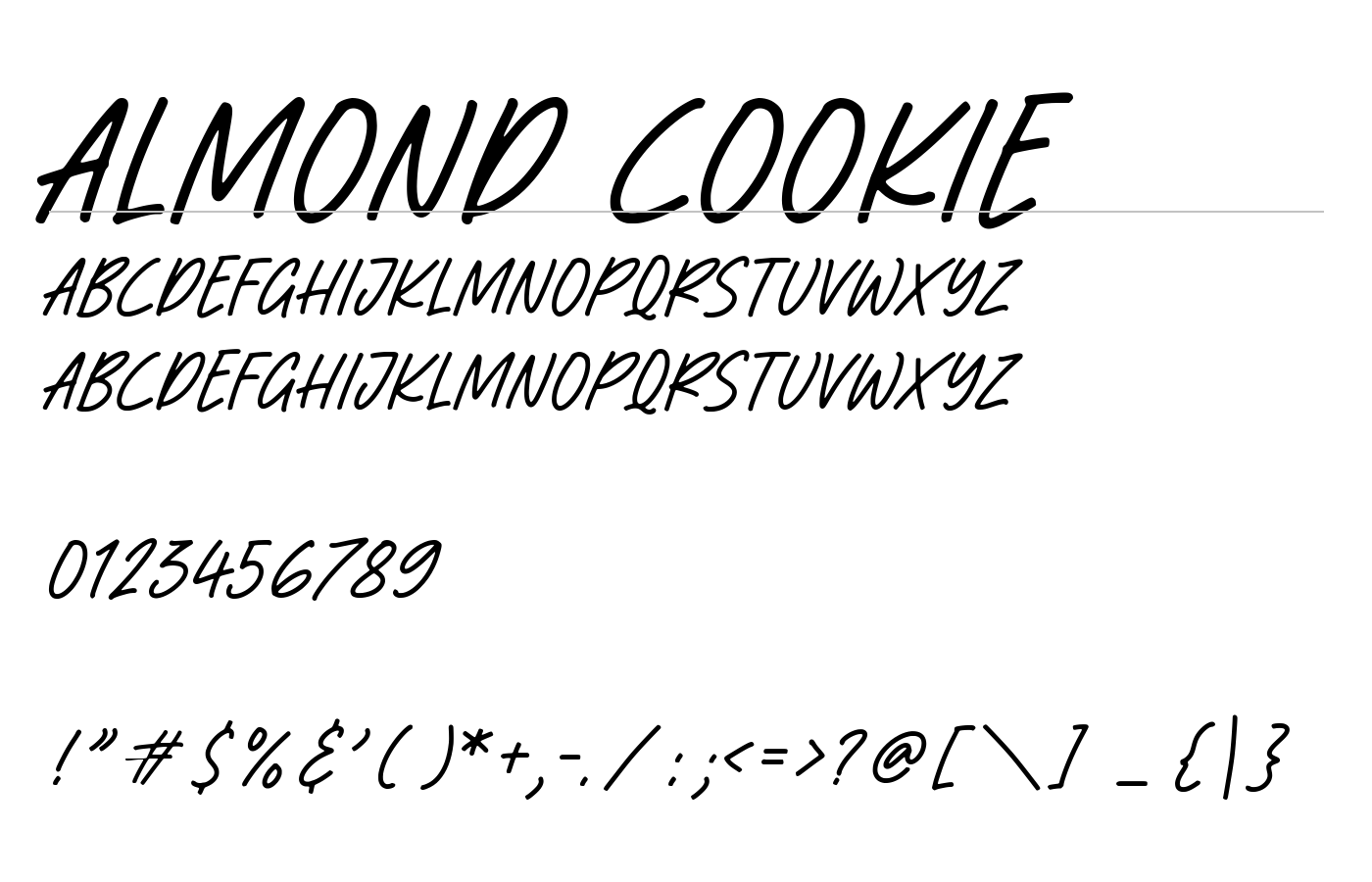
Almond Cookie is a lively and casual script font that mimics natural, handwritten strokes with a slightly slanted, playful style. Its light weight and airy spacing make it feel friendly and approachable, perfect for designs that want a personal, informal touch. This font works wonderfully for branding, invitations, and creative projects where a warm, handwritten vibe is desired.
Almond Cookie Font
About Almond Cookie Font